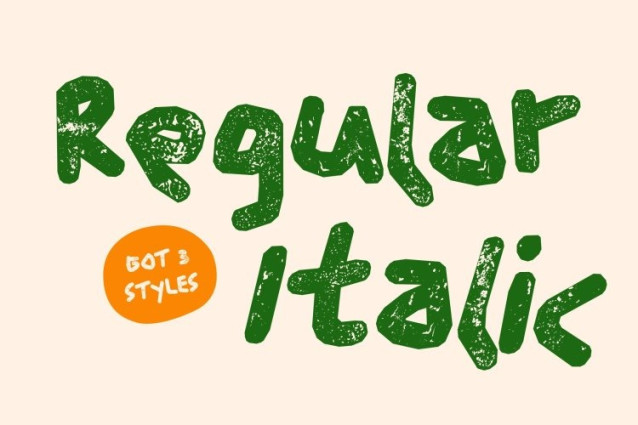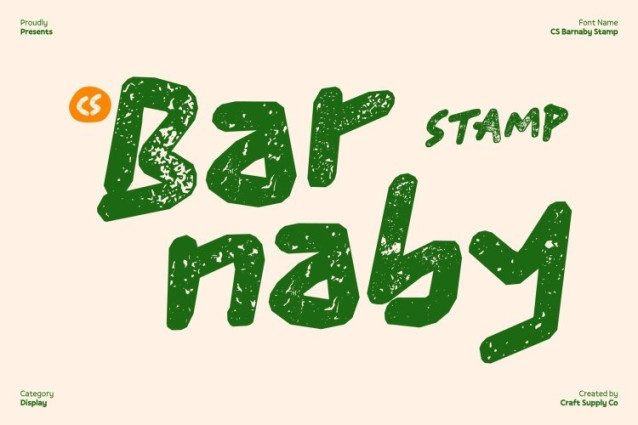
CS Barnaby Stamp Font
CS Barnaby Stamp Font This is a bold sans serif display font designed to celebrate chaos, creativity, and joyful imperfection. Its thick, energetic strokes feel freely scribbled and intentionally irregular, while the stamp effect adds a textured, slightly worn finish. This combination creates a raw, expressive look that feels spontaneous, tactile, and full of personality.
Hand-Scribbled Irregularity with Vintage Texture
The true charm of this font lies in its wild, uneven letterforms. Each character looks as if it were drawn quickly and confidently by hand, capturing the authenticity of playful doodles. The stamped texture enhances this hand-crafted feel, giving the font a vintage, artistic quality that feels warm, human, and visually rich.
Playful Boldness for Energetic Designs
With its heavy weight and quirky shapes, this font injects instant fun into any layout. The messy structure and textured finish amplify its cheerful tone, making designs feel lively, expressive, and bursting with imagination. It’s perfect for projects that want to communicate joy, humor, creativity, and youthful energy.
Perfect for Kids’ Themes, Playful Branding, and Creative Layouts
This font shines in children’s designs, playful branding, posters, packaging, and artistic editorial layouts. Whether used for bold titles, doodle-inspired graphics, kids’ event materials, or fun product visuals, this font delivers a strong, happy voice with a charmingly imperfect and memorable style.